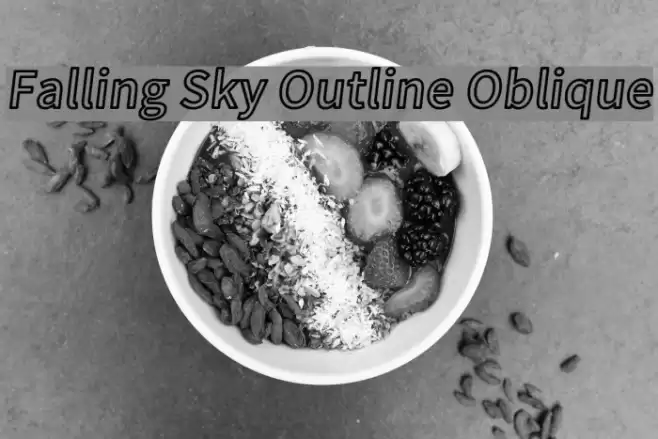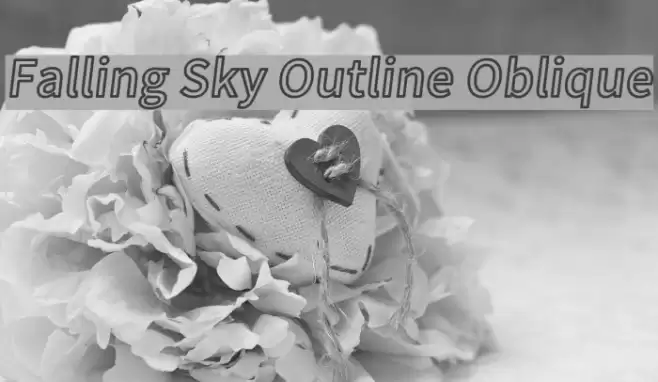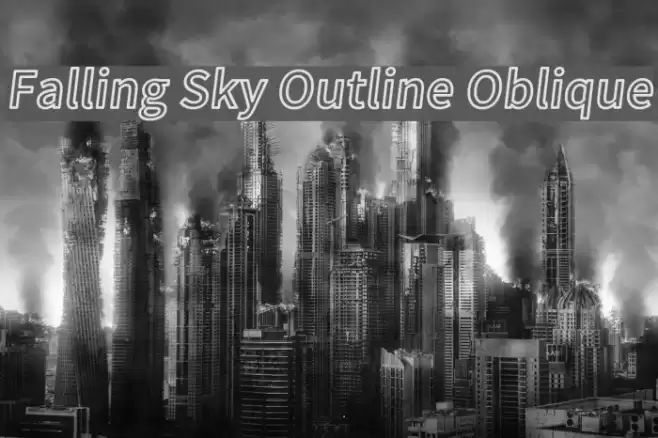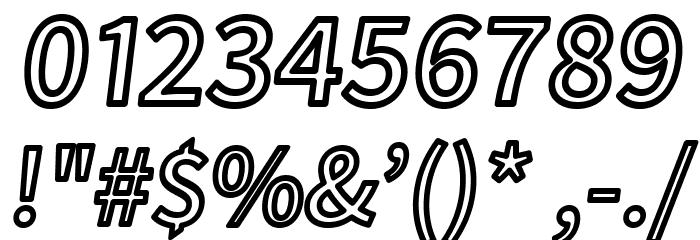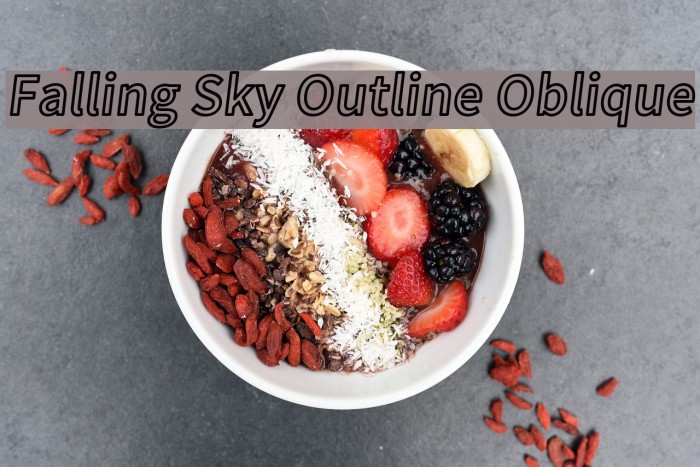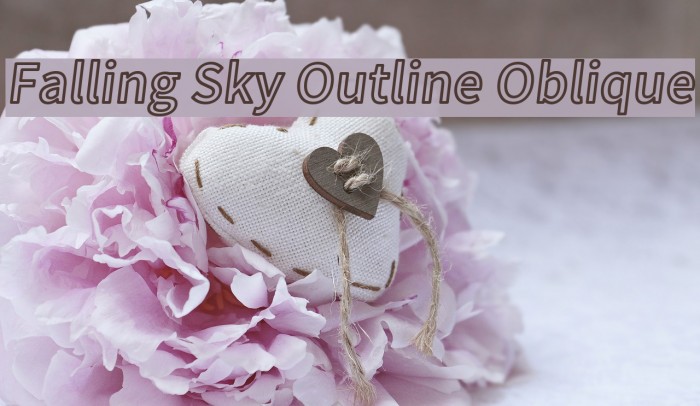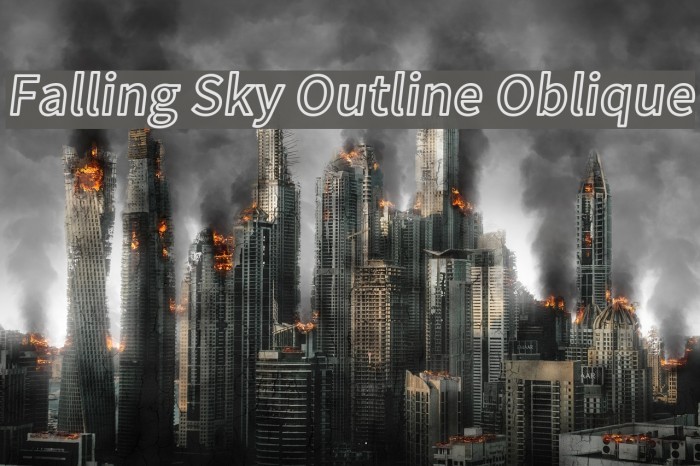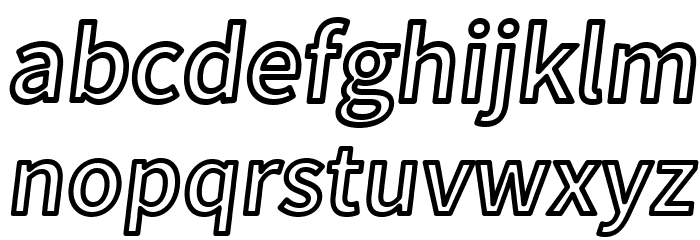
Falling Sky Outline Oblique Font
Falling Sky Outline Oblique Description
This font features a bold, outlined style with an oblique slant, giving it a dynamic and modern appearance. The uppercase and lowercase letters maintain a consistent outline thickness, creating a cohesive look across all characters. The numerals and special characters follow the same design principles, ensuring uniformity. The font's outline nature makes it stand out, while the oblique angle adds a sense of motion and energy. It's well-suited for projects that require a contemporary and eye-catching typeface.
A bold, outlined, and oblique font with a modern and dynamic style from Uncategorized fonts.
- Font: Falling Sky Outline Oblique
- Proposed Projects: Ideal for headlines, posters, branding materials, and any design needing a striking and modern typeface.